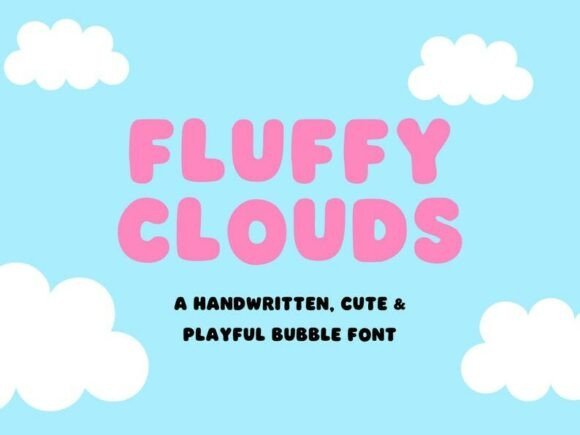
Introduction to Fluffy Clouds Font
Introducing Fluffy Clouds – a bubbly handwritten typeface that captures the joy and whimsy of childhood with its soft, playful curves.
Every letter in the Fluffy Clouds font is brimming with charm It effortlessly enhances kids’ designs and playfully elevates stickers, logos, party invitations, and branding.